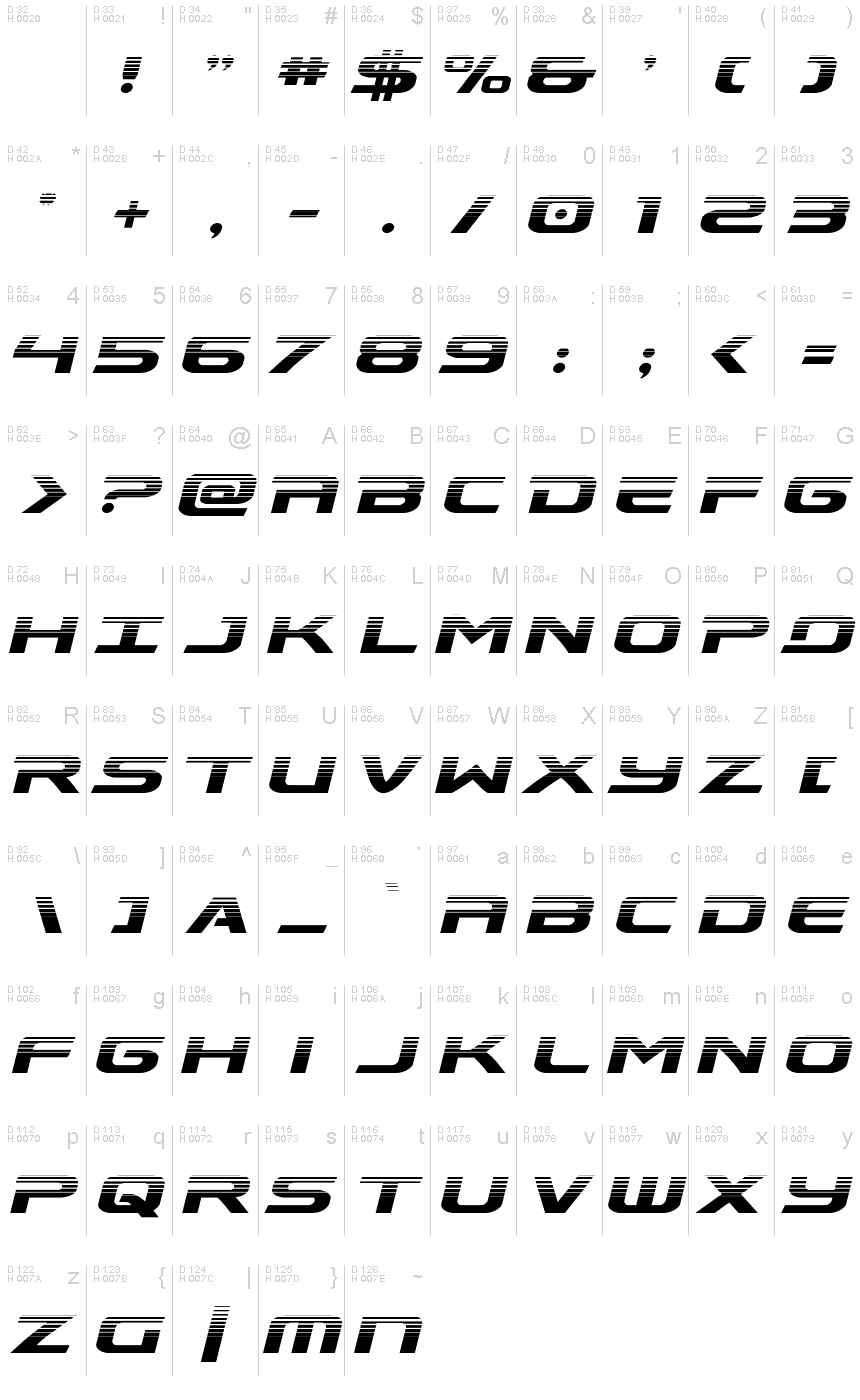
Drius Halftone, a striking display font from the Drius family by Iconian Fonts, brings a touch of the future to your designs. With its bold weight and extra-expanded width, it commands attention and adds depth to any project. The captivating halftone effect creates a unique visual texture that sets your designs apart.
Perfect for science fiction book covers, futuristic posters, or even edgy branding projects seeking an avant-garde twist. Let Drius Halftone make your designs stand out in the crowd with its boldness and captivating style.
Presentazione e campione visivo del carattere Drius Halftone